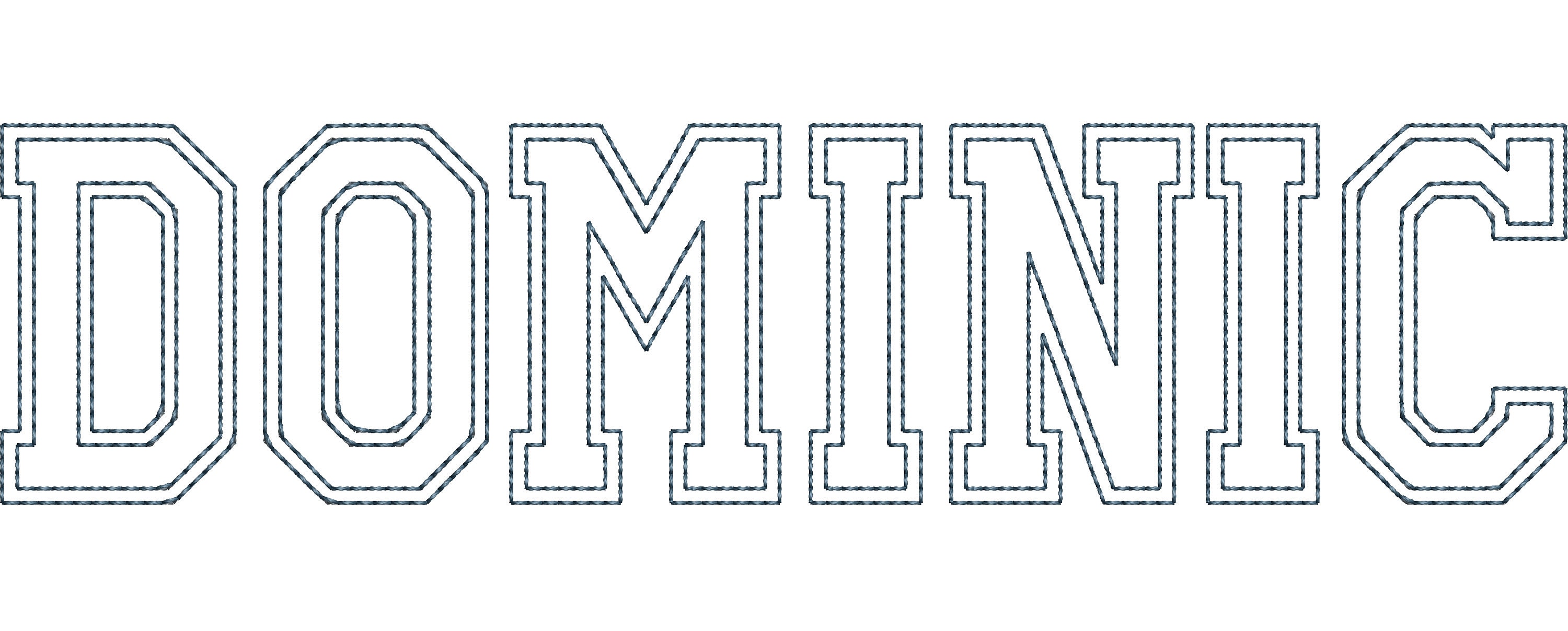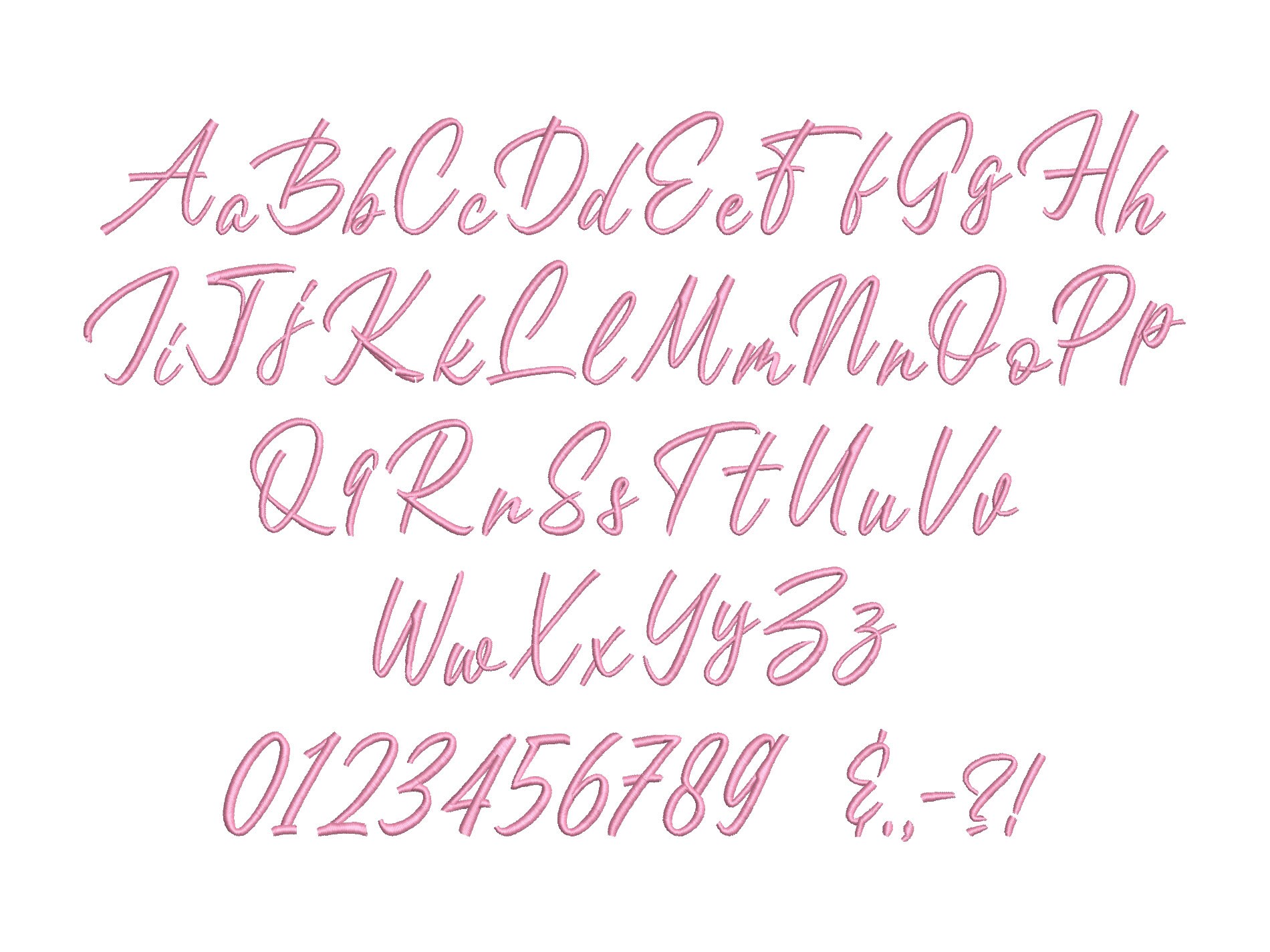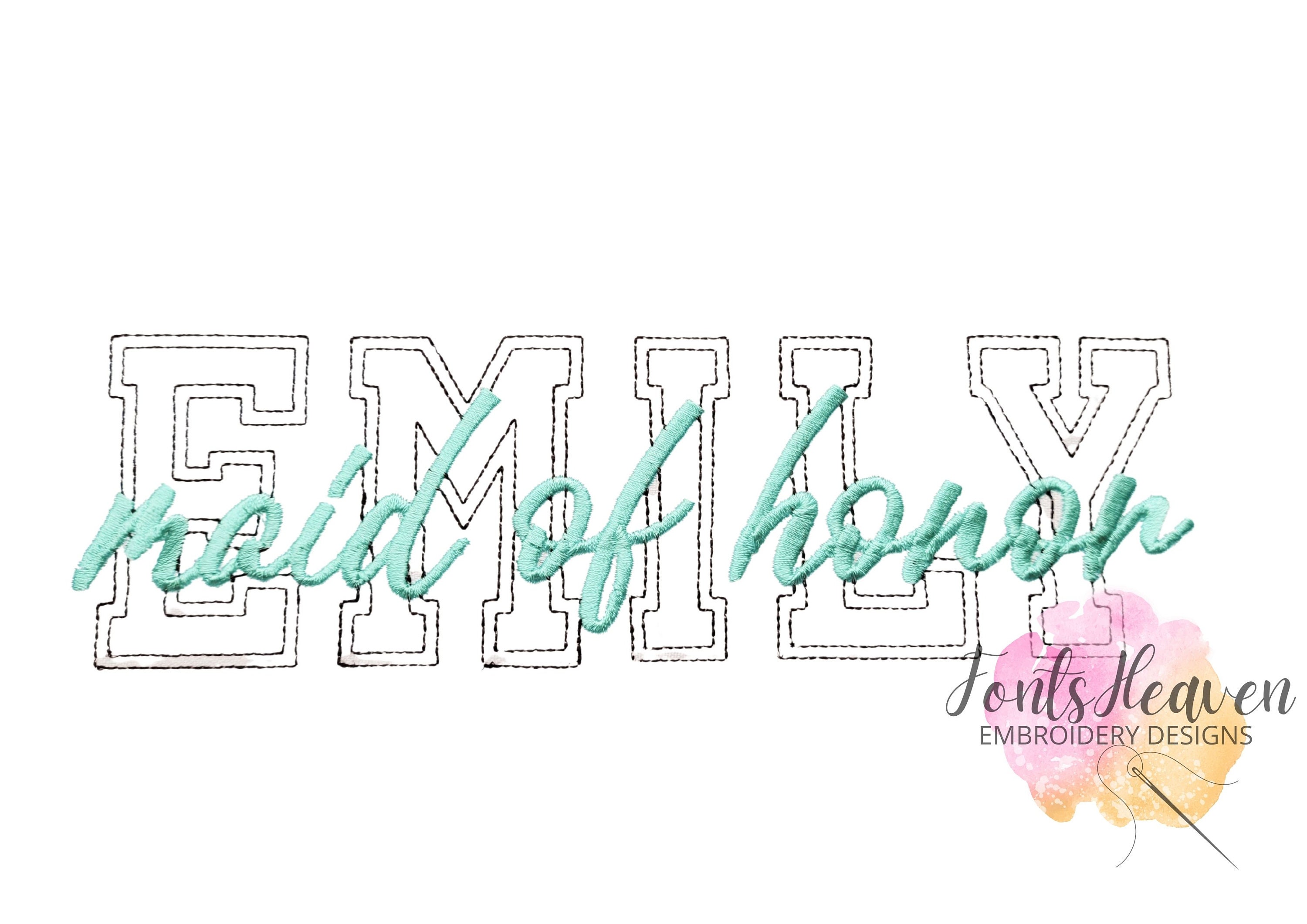
Wedding bride gift idea alphabet SET of 2 types free edge Block Athletic Applique and script Satin Stitch Fonts Machine Embroidery Designs
This is a really cute set of two fonts:
* block double layers applique and
* handwritten script font.
You may make bridal complect or mama shirt.
Applique embroidery design with two bean stitch outlines and with no edge stitch makes a great raggedy style design. Also may be used with the glitter vinyl.
Or you may skip the applique steps and stitch just outlines only.